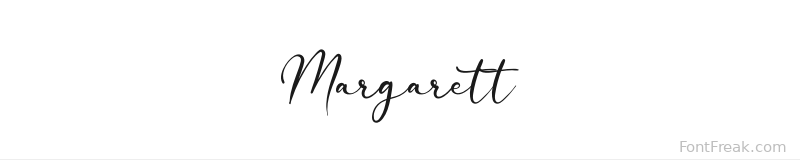
Margarett Italic
Margarett
Margarett Italic, created by Kong Font in 2020, is an elegant script typeface that beautifully blends sophistication with modern flair. As a handwritten font, it features fluid strokes with a graceful slant that adds a personal touch to any project. The visual characteristics of Margarett Italic include a medium stroke weight complemented by gentle contrast between thick and thin lines. The letterforms are slightly condensed, offering a balanced spacing that enhances readability while maintaining an artistic appeal. Decorative elements like swooping ascenders and descenders enrich the font's overall aesthetic, making it a standout choice for various applications.
This versatile font is perfect for a range of use cases. It shines in wedding invitations, where its romantic style evokes emotion and elegance. Additionally, Margarett Italic is ideal for branding materials, such as logos for boutique businesses, where a touch of sophistication can set a brand apart. Its charm also makes it suitable for restaurant menus, where it can highlight special dishes with a personal flair. Content creators will find it useful in social media graphics, where a stylish touch can enhance engagement and visual appeal.
What truly sets Margarett Italic apart is its ability to capture the essence of handwritten elegance while remaining highly versatile. Its unique character and charm make it an excellent choice for anyone looking to add a refined touch to their design work.